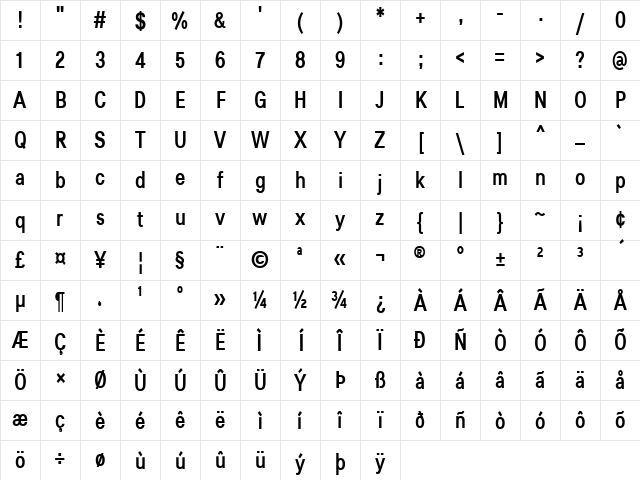
Lunchtype25 Condensed Medium
Foundry: Steppot
Designer: Lunchtype.com
Design Context for Lunchtype25
Lunchtype25 is a composed and adaptable typeface that performs quietly and consistently across a wide range of design contexts. Its narrow stance lets it pack a punch even in space-constrained designs.